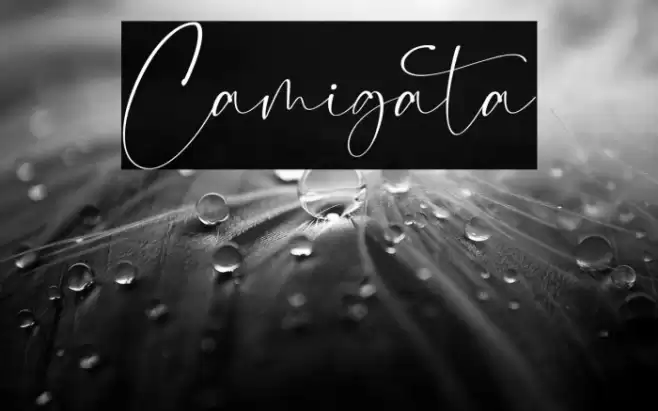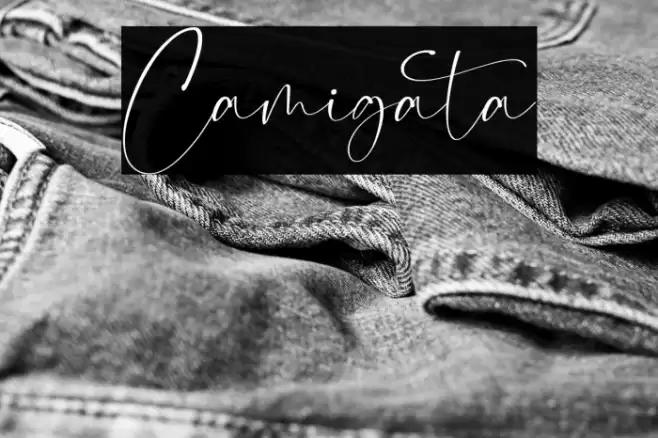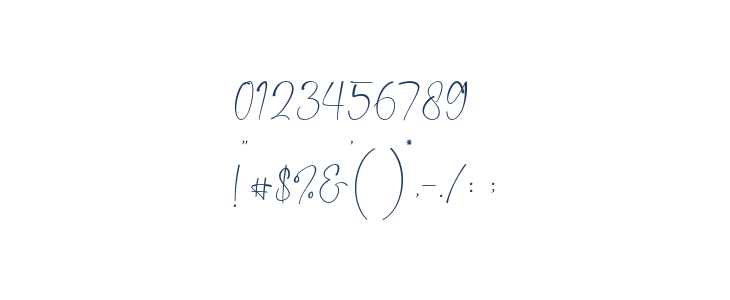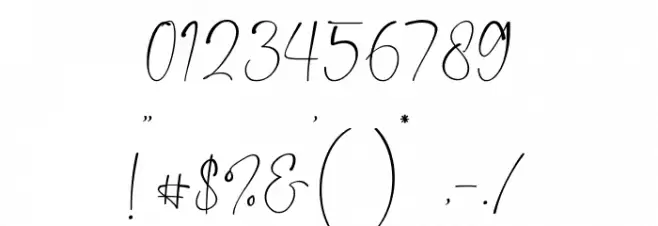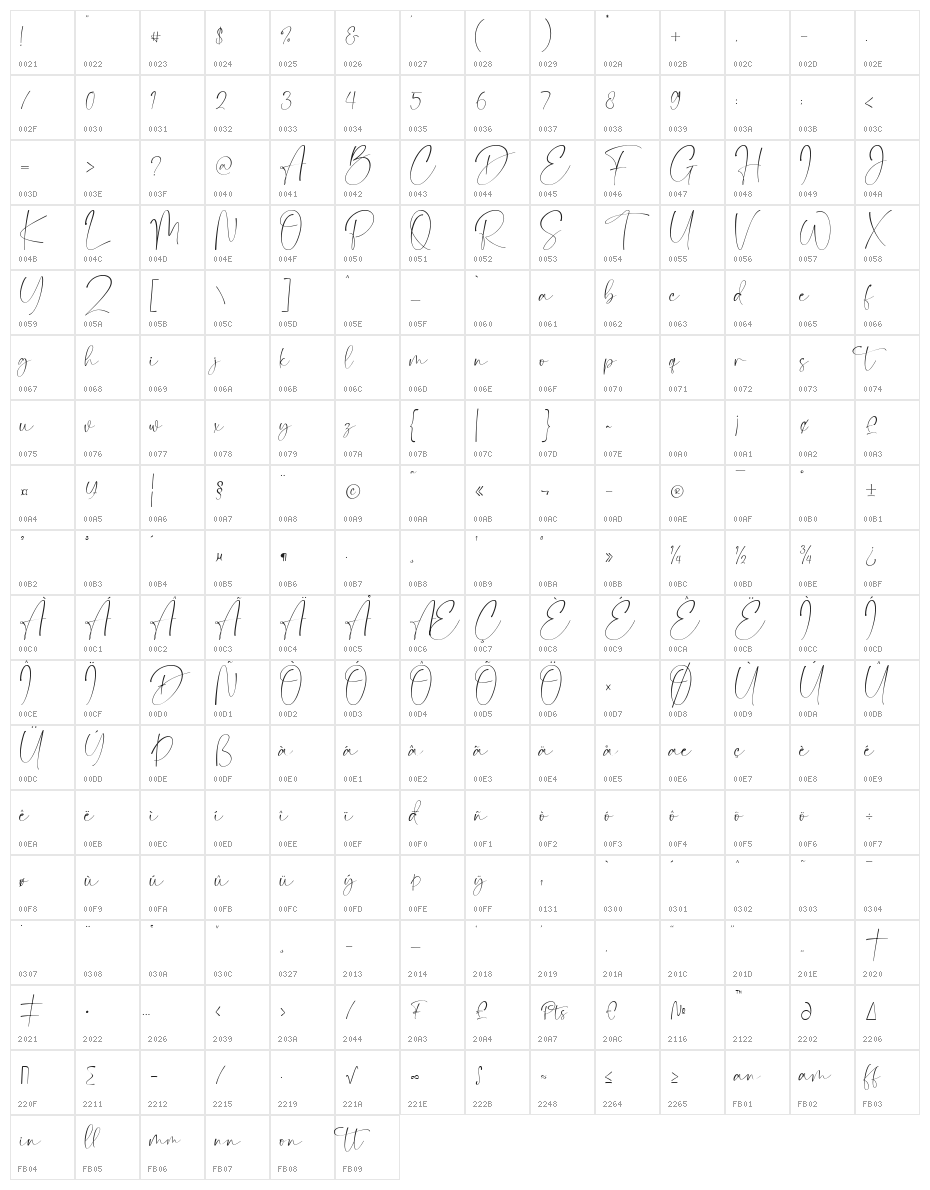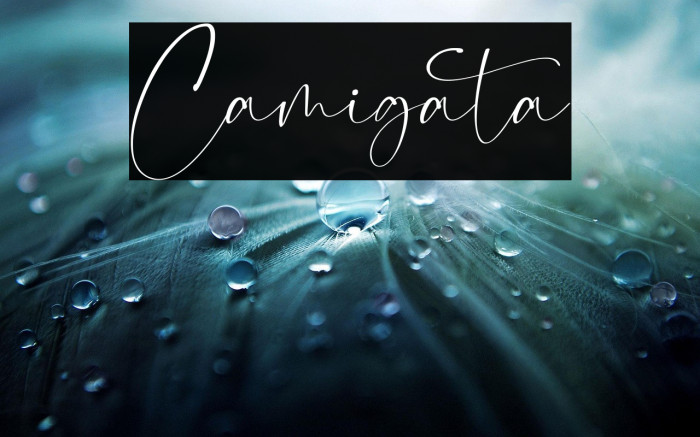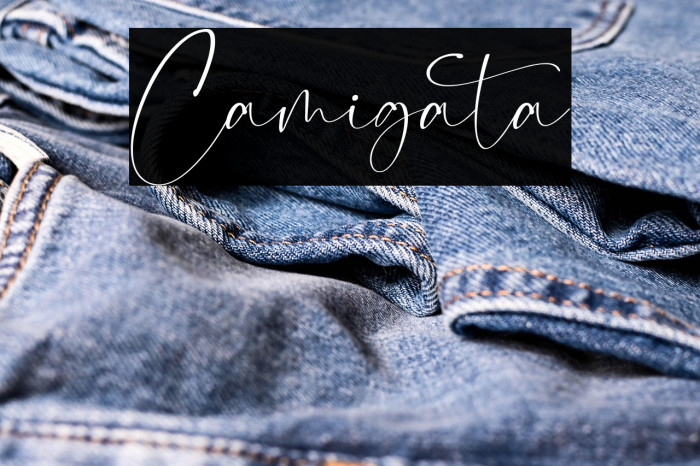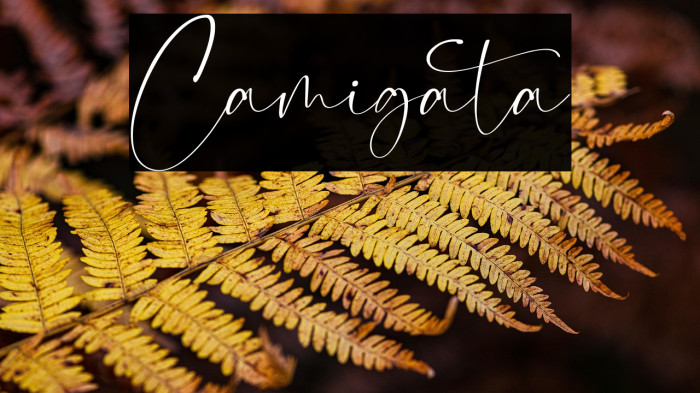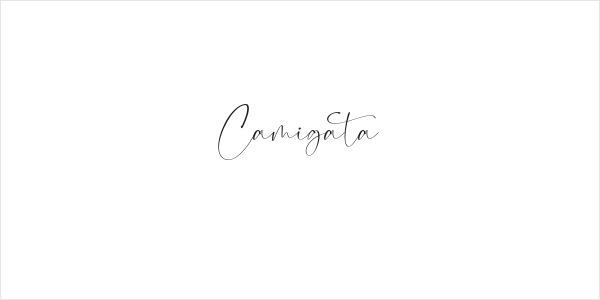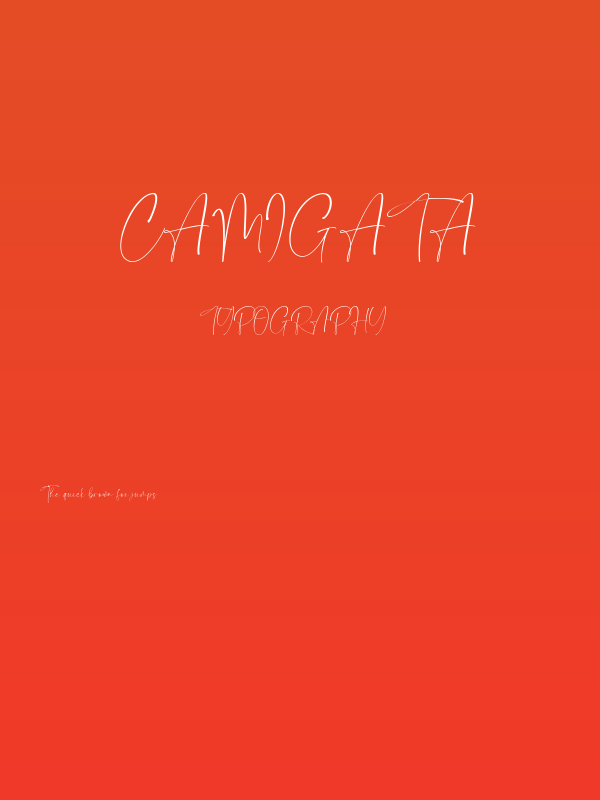
Camigata Font
Camigata Description
This font features an elegant and flowing script style, characterized by its delicate and intricate letterforms. The uppercase letters are tall and graceful, with sweeping curves and loops that give a sense of movement and fluidity. The lowercase letters maintain this fluidity, with a slightly more compact form, yet still retaining the graceful curves. The numerals are consistent with the overall style, offering a harmonious blend of elegance and readability. Special characters are thoughtfully designed to complement the script, adding to the font's versatility. This font exudes a sense of sophistication and charm, making it ideal for projects that require a touch of elegance.
An elegant and flowing script font with graceful curves and sophisticated style from Uncategorized fonts.
- Proposed Projects: Ideal for wedding invitations, elegant branding, greeting cards, and luxury packaging.
- Overall Style: Elegant
- Use Case: Logos, Invitations, Branding